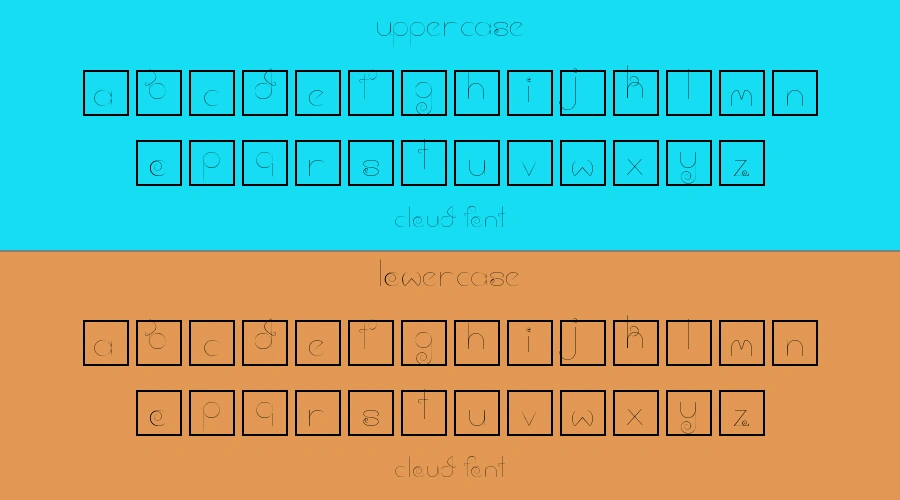
About cloud Font
cloud Font represents a sophisticated approach to type design, balancing calculated proportions with classic beauty. Perfect for magazine layout, this font family showcases impressive scalability and sophistication throughout its character set. Designers appreciate its versatility and reliability.
Designers will appreciate nuanced touches including dynamic forms and standard ligatures, adding sophistication to any project. These features become apparent in product names, where screen rendering matters most. The careful treatment of terminal angle and standards alignment ensures optimal performance.